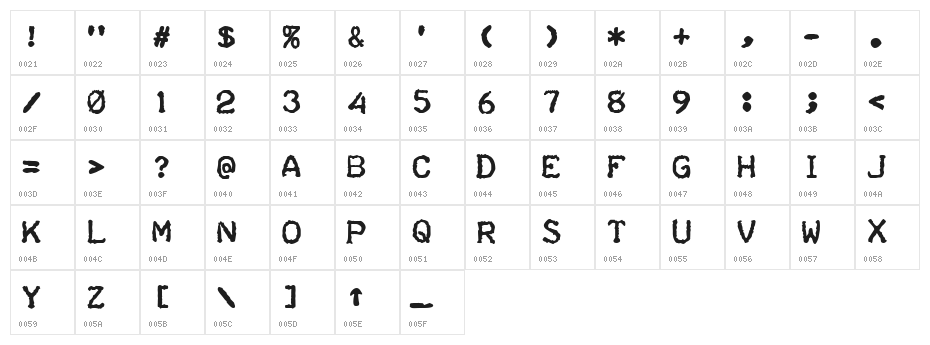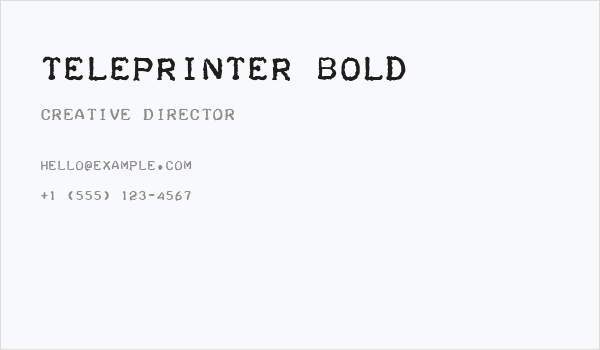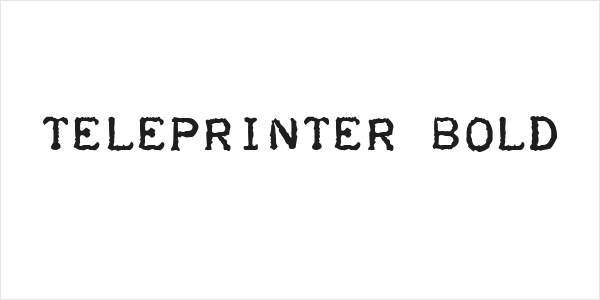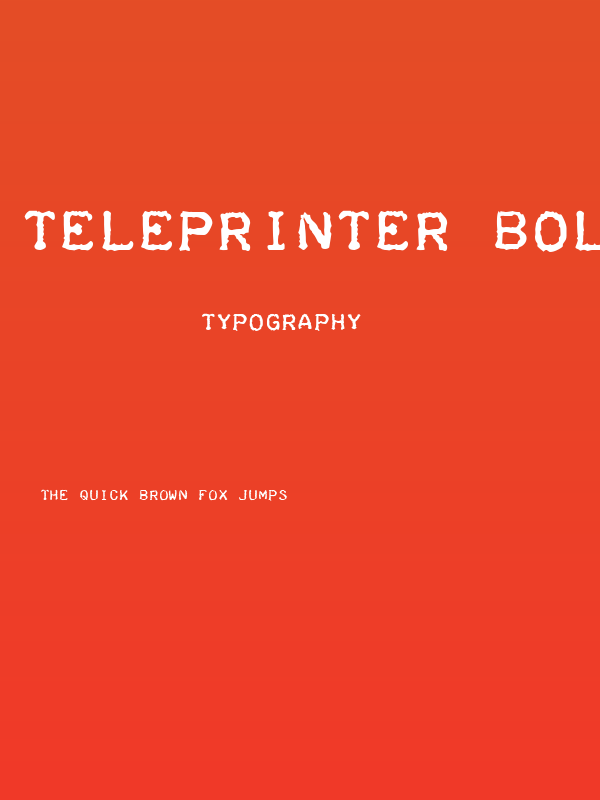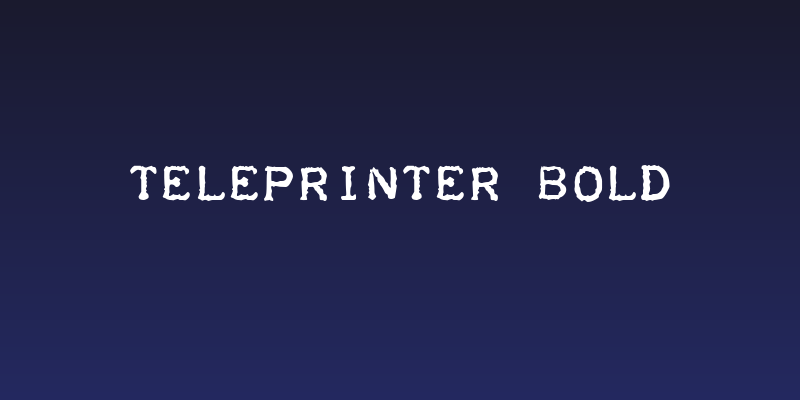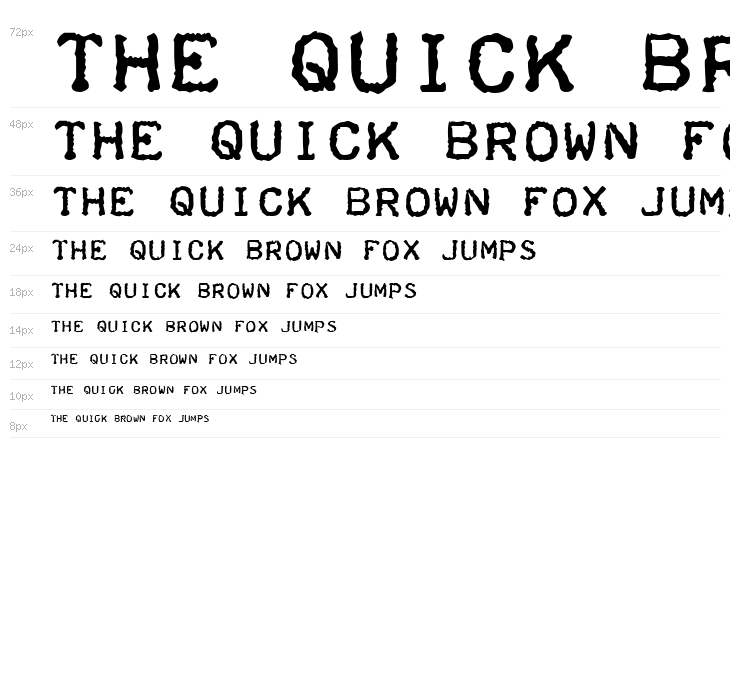
Teleprinter Bold Font
Teleprinter Bold Description
This font features a bold and rugged style, reminiscent of vintage teleprinter or typewriter text. The characters have a distressed, textured appearance, giving them a unique and handcrafted feel. Each letter is distinct with irregular edges, adding to the font's charm and character. The uppercase and lowercase letters maintain a consistent style, while the numbers and special characters complement the overall design. This font is ideal for projects that require a retro or industrial look, offering a sense of nostalgia and authenticity.
| Proposed Projects | Ideal for vintage-themed designs, posters, branding, and logos requiring a retro or industrial aesthetic. |